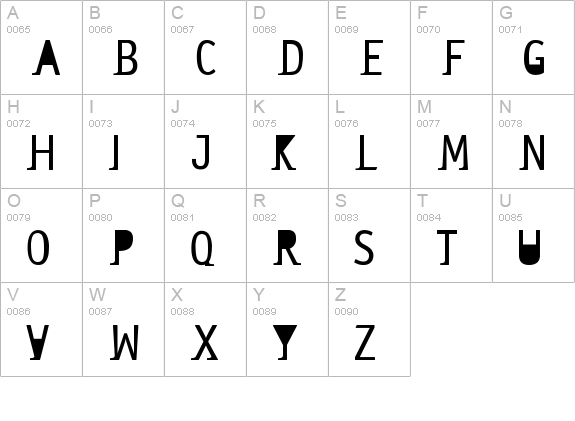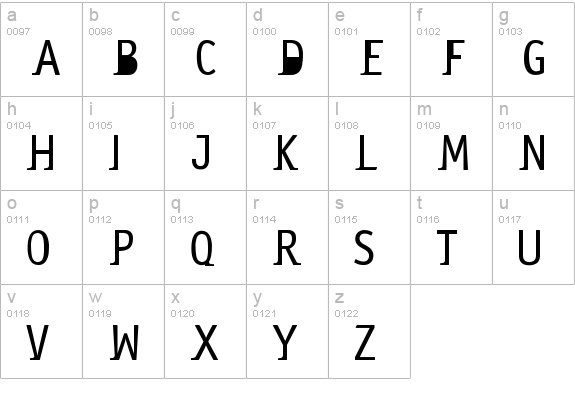
Introducing the captivating and versatile New font – a true gem for designers, creatives, and typography enthusiasts alike. This sensational typeface exudes elegance, sophistication, and a touch of modernity, making it the perfect choice for a wide range of projects, from branding and advertising to editorial design and web graphics. What sets New font apart is not only its exquisite design and attention to detail but also its accessibility. This remarkable font is available for free, allowing anyone to elevate their visual creations without breaking the bank. Say goodbye to the limitations of expensive fonts and embrace the freedom of creativity with New font. To make it even more convenient, New font can be easily downloaded at FontsMarket.com. This reputable online platform offers a vast collection of high-quality fonts, and New font is one of their prized offerings. With just a few clicks, you can have this remarkable typeface at your fingertips, ready to add a touch of sophistication and style to your next project. Whether you're a professional designer looking to expand your font library or a hobbyist seeking to enhance your personal projects, New font is the ideal choice. Its clean lines, harmonious proportions, and impeccable readability make it suitable for a wide range of design applications. From headings and titles to body text and captions, this versatile font will effortlessly adapt to any layout or composition. With New font, the possibilities are endless. Let your imagination run wild as you explore the infinite creative potential of this exceptional typeface. Enhance your designs, captivate your audience, and leave a lasting impression with the elegance and charm of New font – the free font that is yours for the taking at FontsMarket.com.